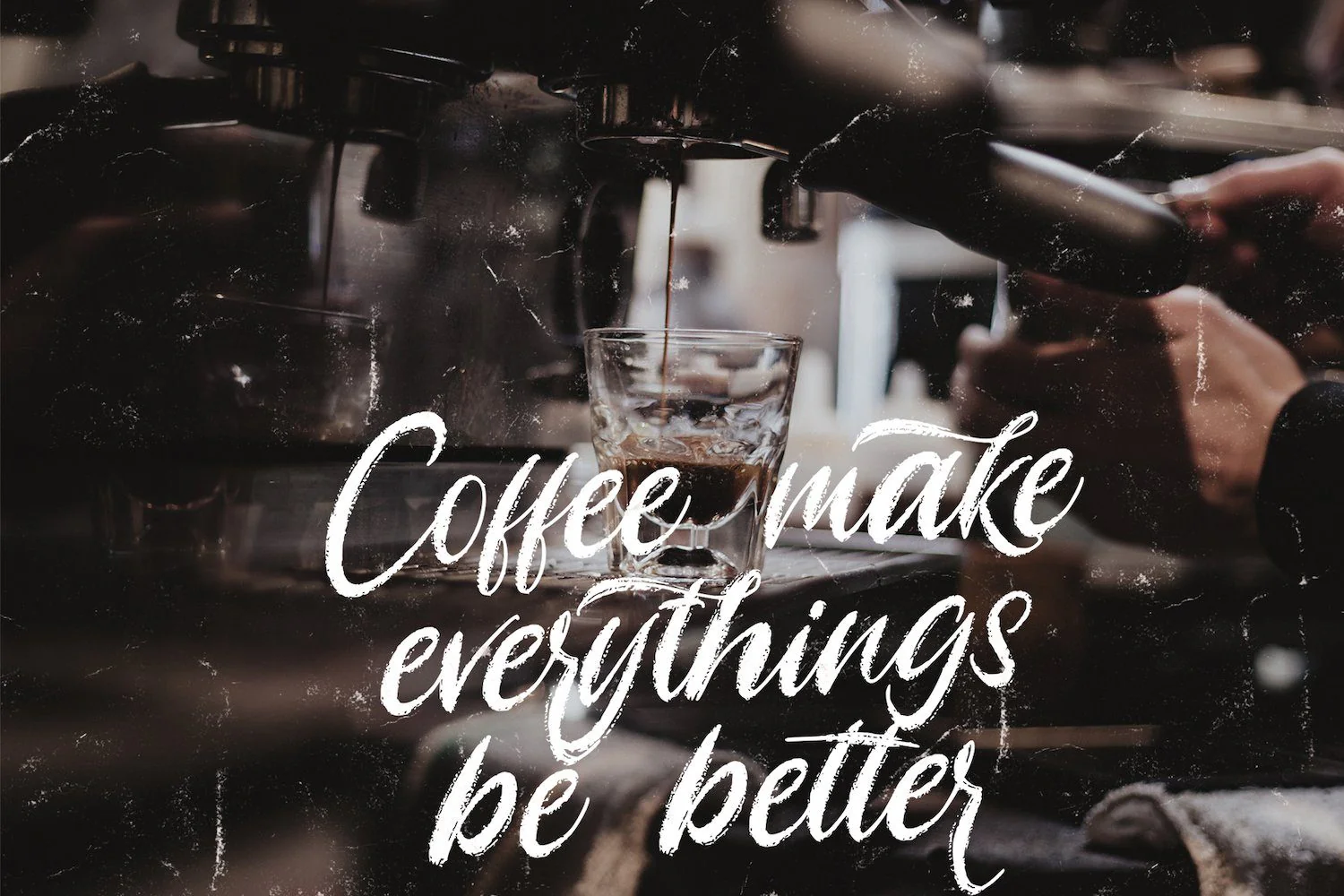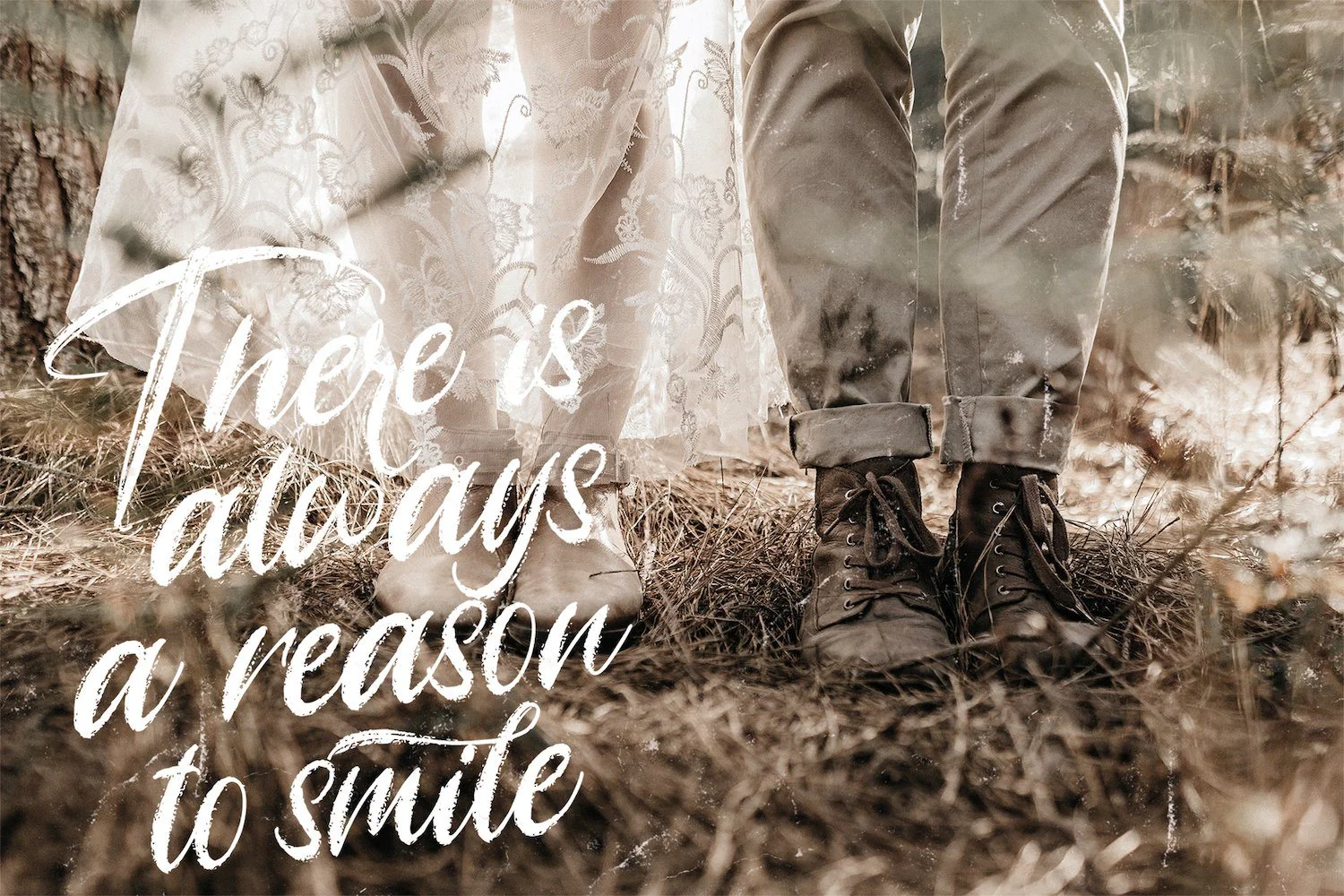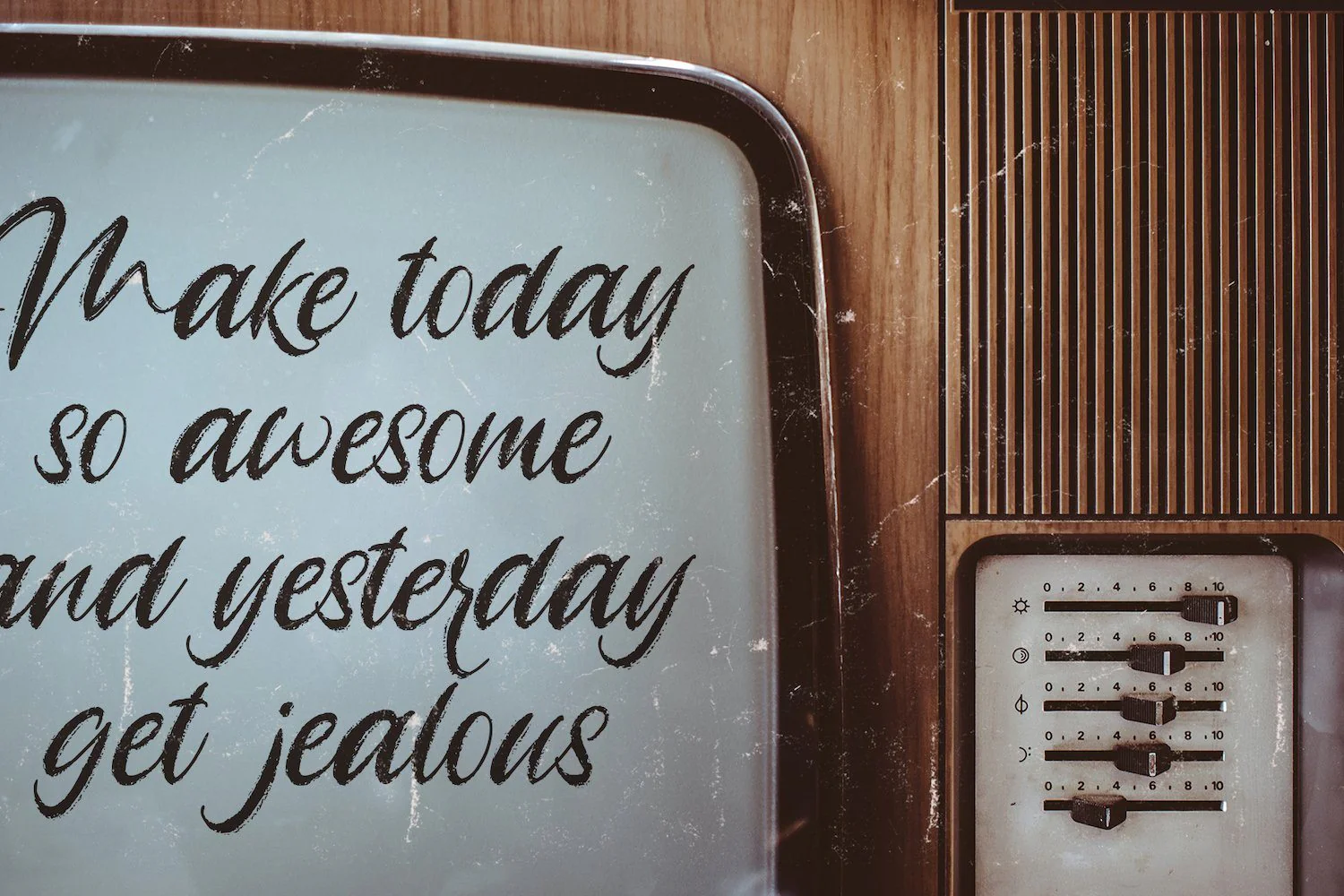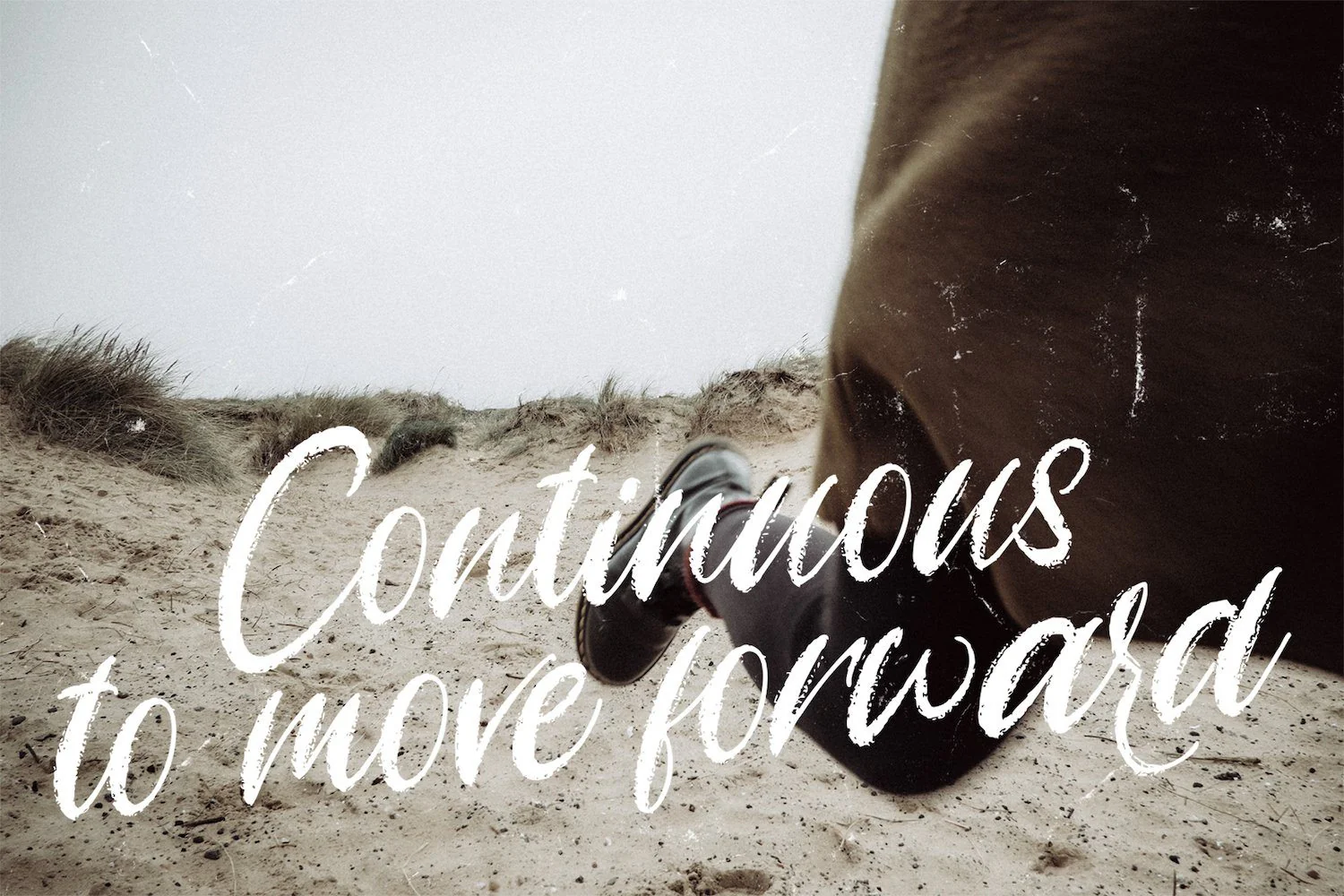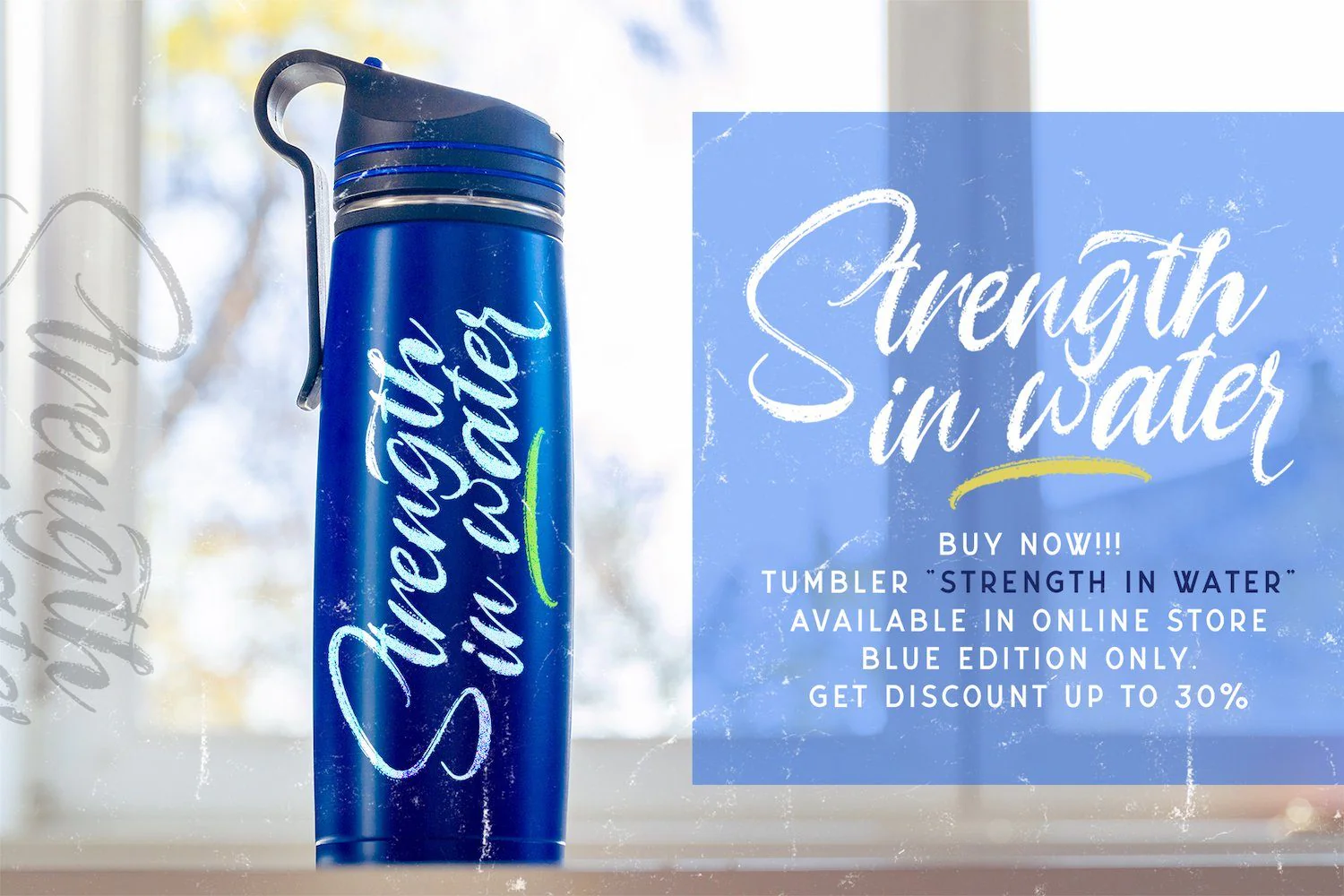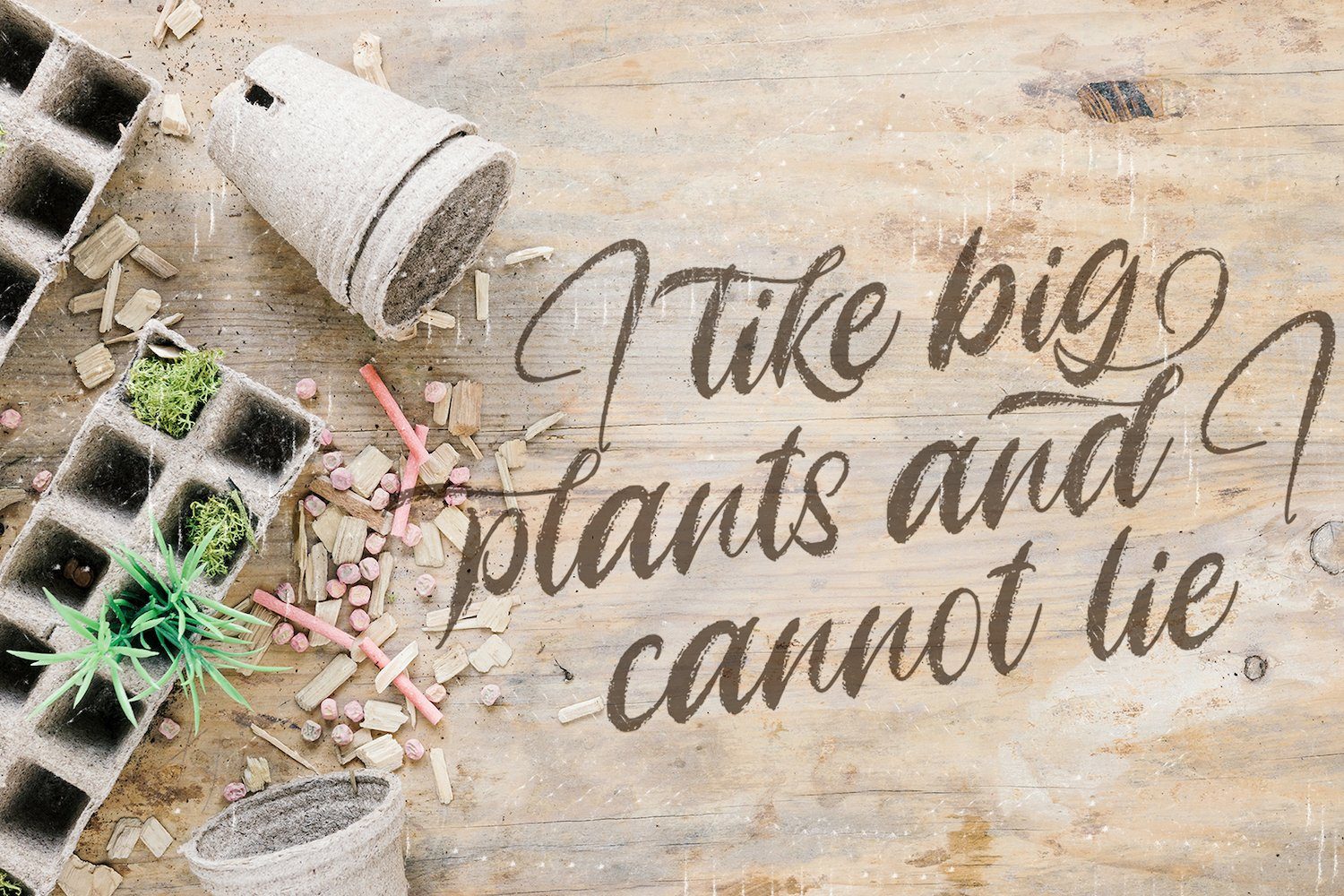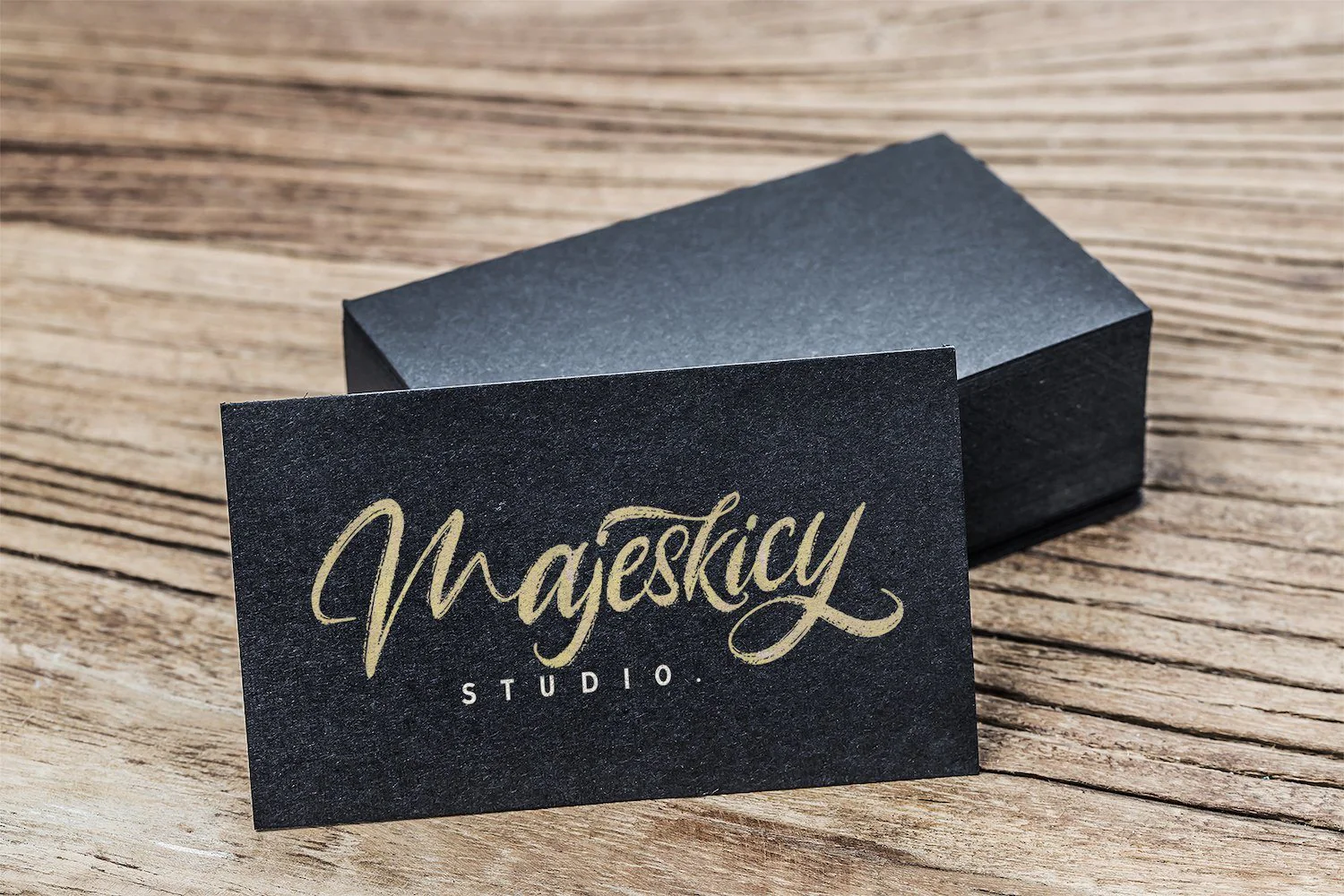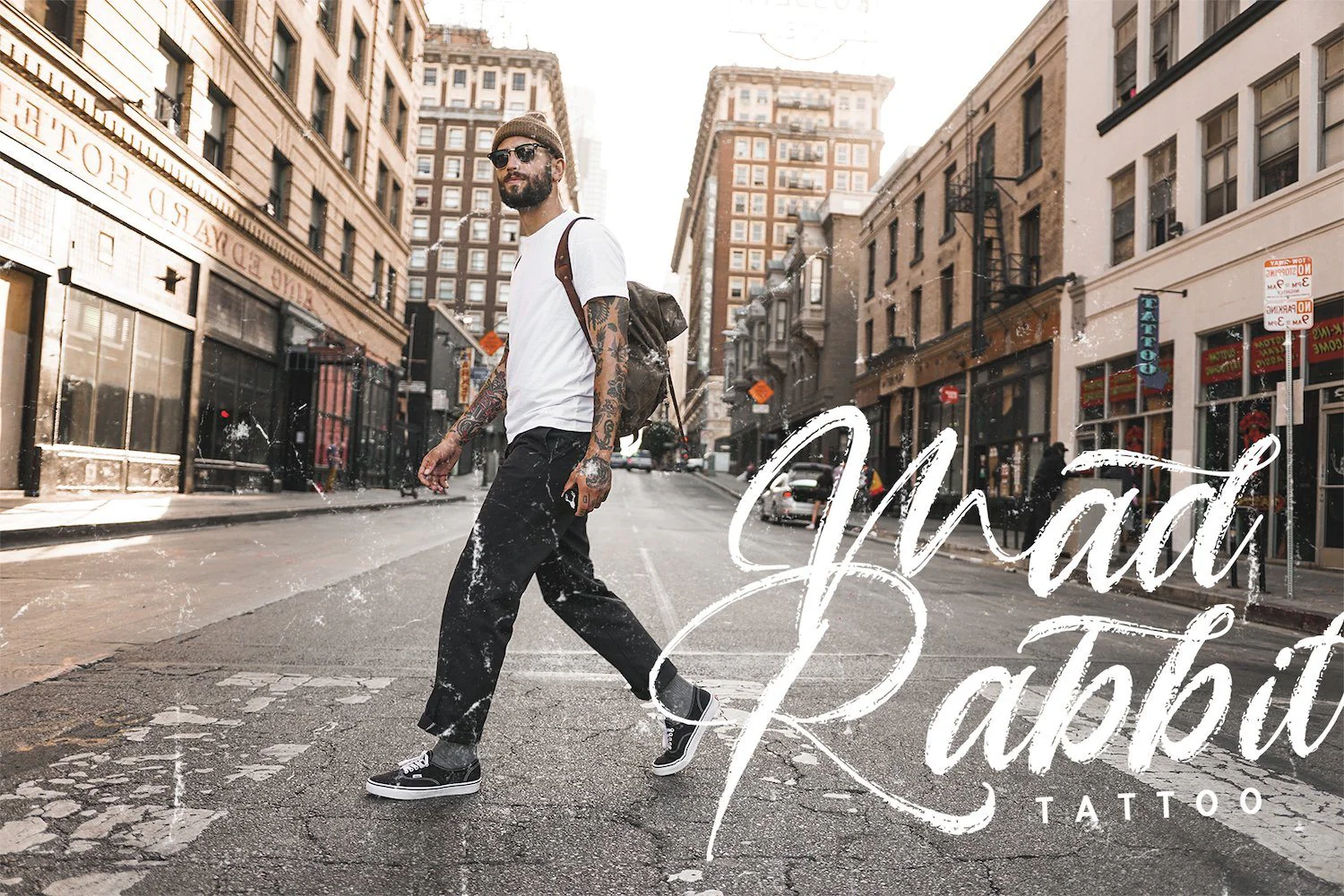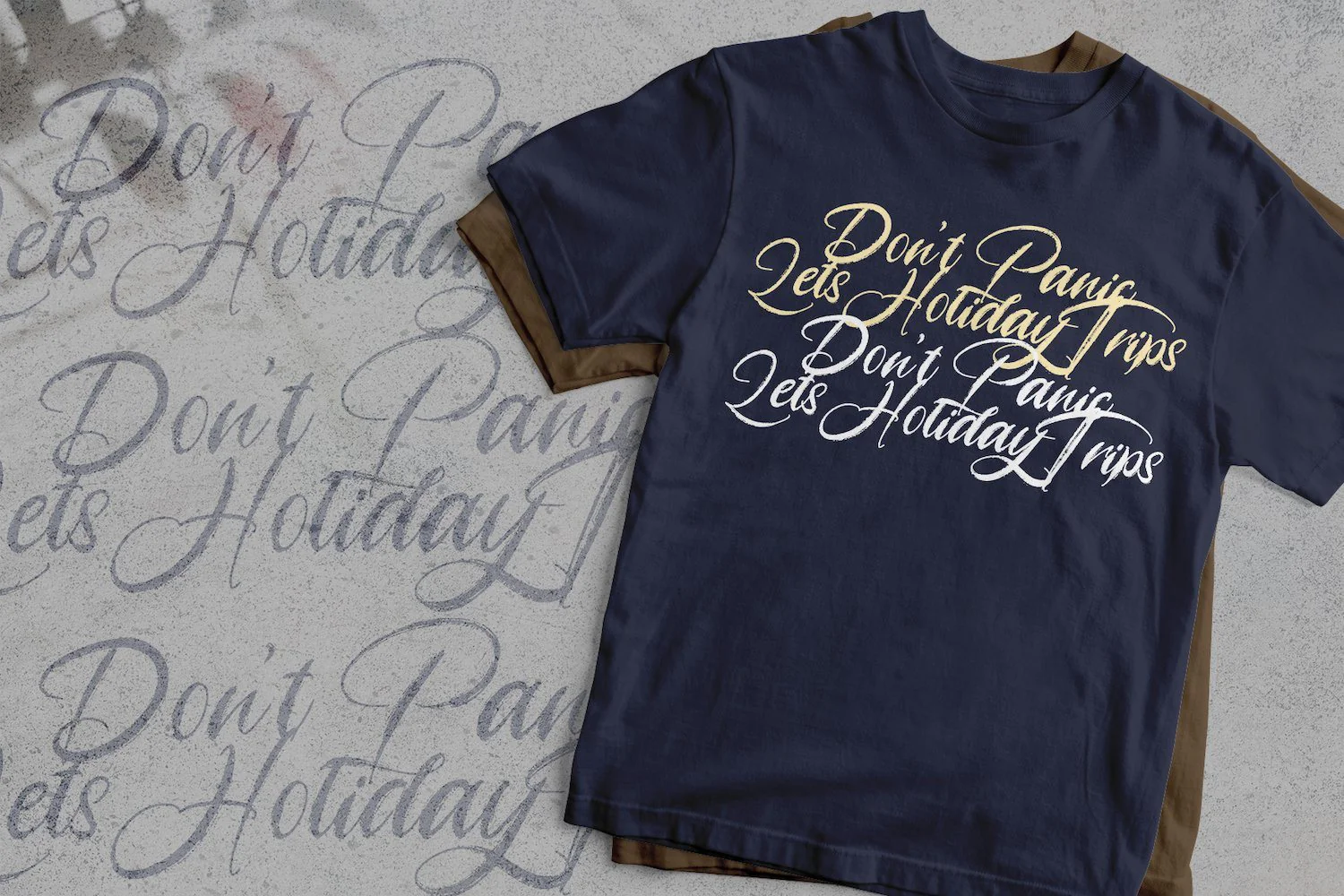
Angelicy - Textured Brush Font
Introducing Angelicy - Textured Brush Font
Angelicy is a script font with textured hand brush style. The Angelicy font made with digital hand brush pen strokes that making this font look authentic and unique concept. This font is perfect for fashion brand, wedding invitation, business card, logo brand, and then calligraphy project.
Introducing Angelicy - Textured Brush Font
Angelicy is a script font with textured hand brush style. The Angelicy font made with digital hand brush pen strokes that making this font look authentic and unique concept. This font is perfect for fashion brand, wedding invitation, business card, logo brand, and then calligraphy project.